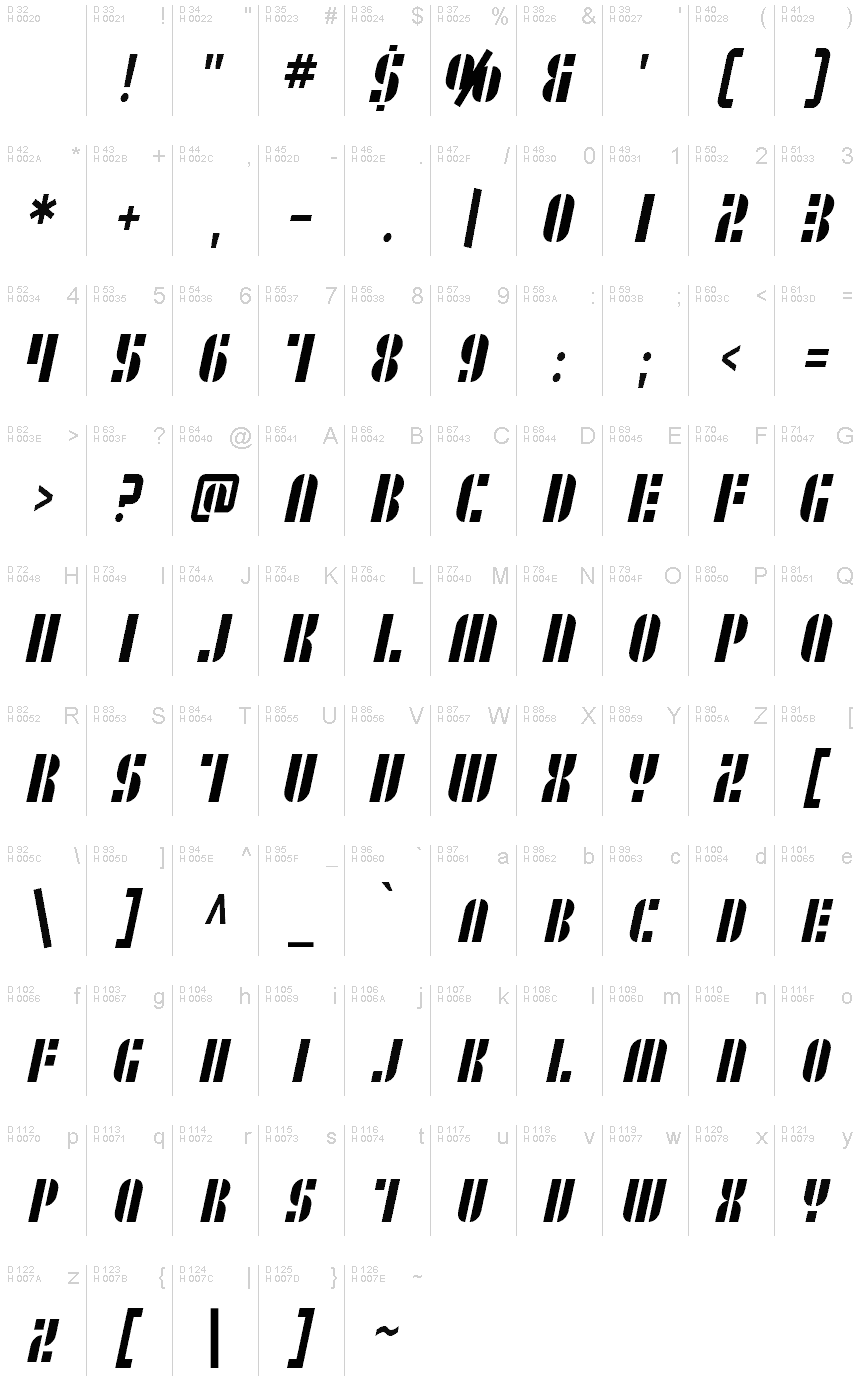
SF RetroSplice SC Condensed
SF RetroSplice SC Condensed, a standout creation from ShyFonts Type Foundry, masterfully marries the essence of futuristic styling with the nostalgia of retro design. With its extra-condensed and bold weight, this display font embodies strength and presence that demands attention. Each character is crafted with sharp geometric cuts and angles that exude a dynamic energy, perfect for making a bold statement in visual communication.
The clean lines and structured form of SF RetroSplice SC Condensed offer an aesthetic appeal that resonates with modern sensibilities while echoing an era fascinated by space exploration and technology. This font's tight letter spacing ensures high-impact readability, making it ideal for headlines, posters, branding materials, or any creative project where you aim to leave a lasting impression.
Its distinctive style positions SF RetroSplice SC Condensed as a versatile tool for designers looking to inject their work with a touch of the extraordinary. Whether you're aiming for an avant-garde look or channeling vintage vibes within contemporary contexts, this font is poised to elevate your designs to new heights.
The clean lines and structured form of SF RetroSplice SC Condensed offer an aesthetic appeal that resonates with modern sensibilities while echoing an era fascinated by space exploration and technology. This font's tight letter spacing ensures high-impact readability, making it ideal for headlines, posters, branding materials, or any creative project where you aim to leave a lasting impression.
Its distinctive style positions SF RetroSplice SC Condensed as a versatile tool for designers looking to inject their work with a touch of the extraordinary. Whether you're aiming for an avant-garde look or channeling vintage vibes within contemporary contexts, this font is poised to elevate your designs to new heights.